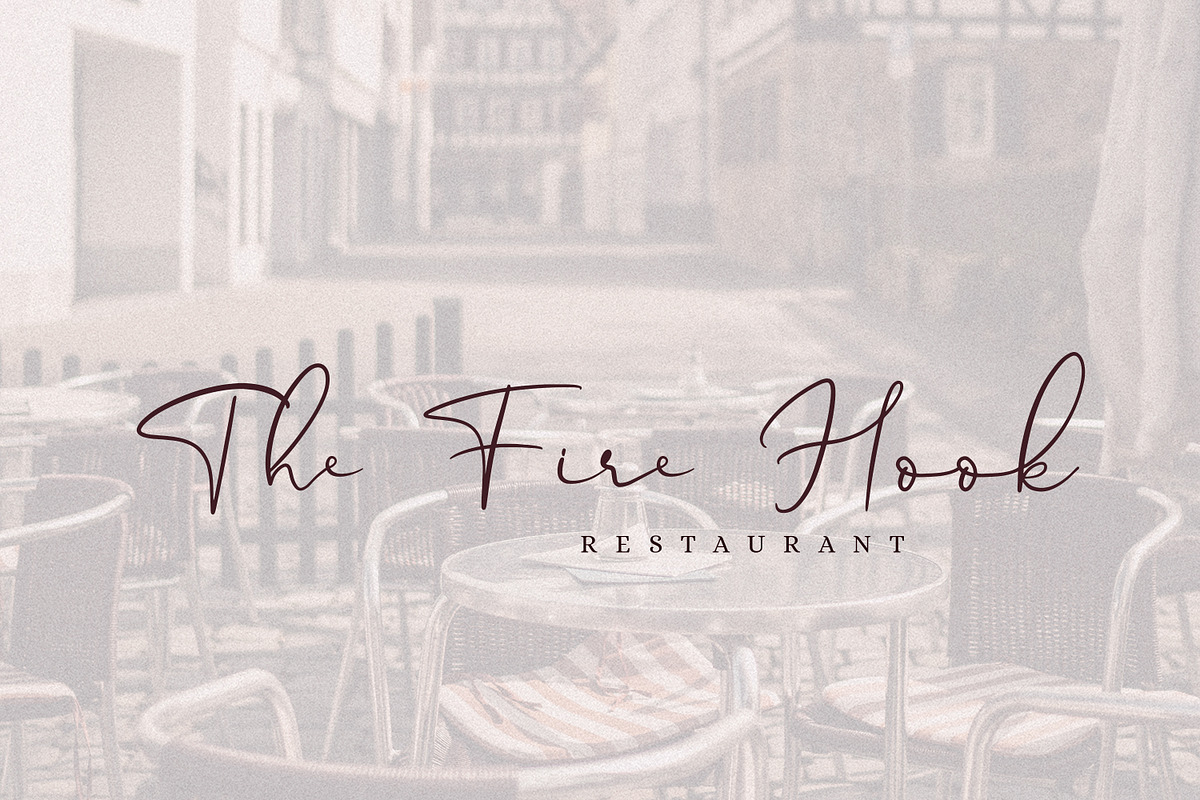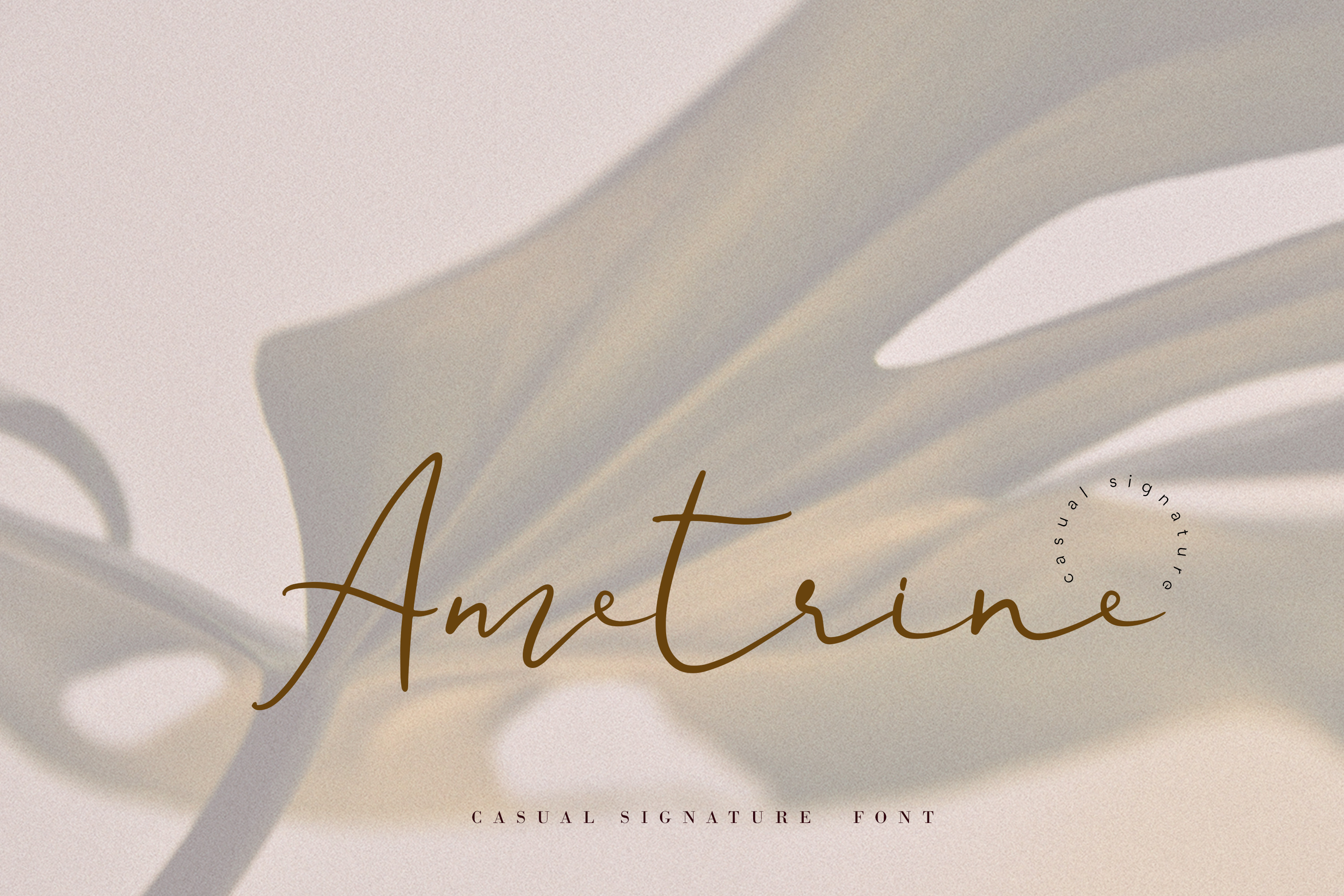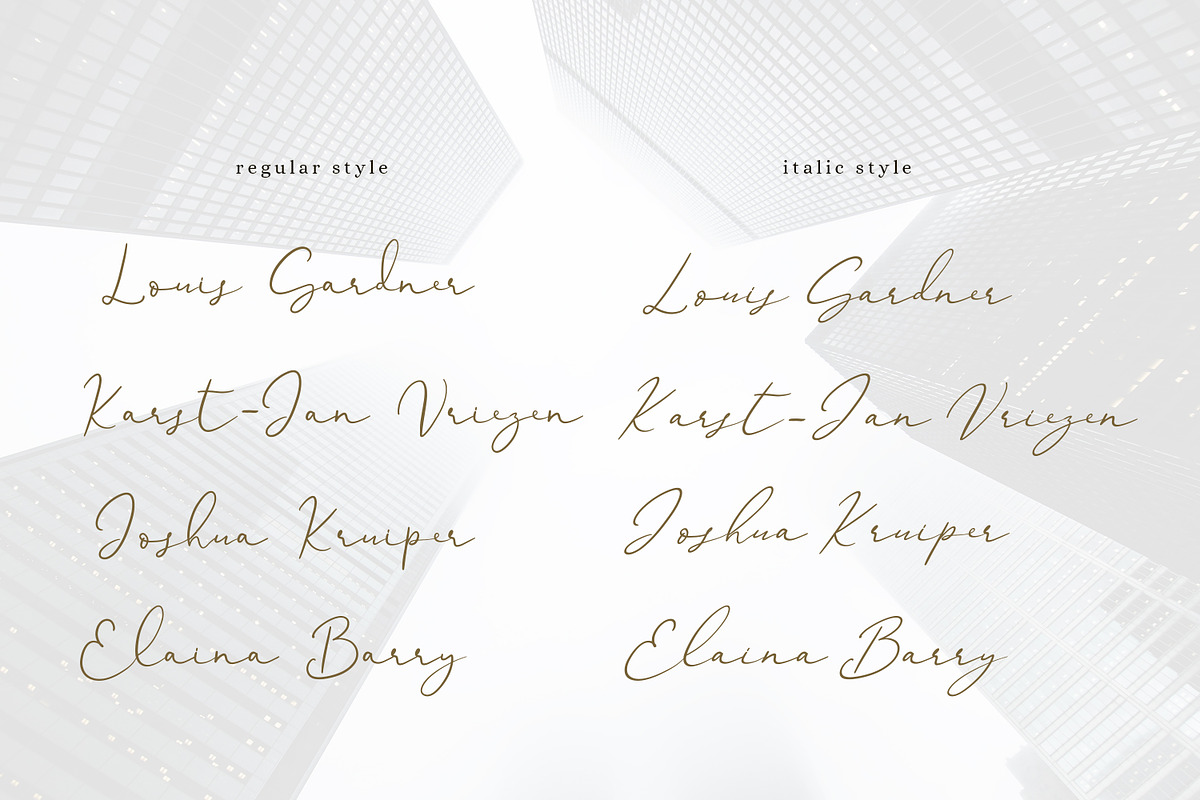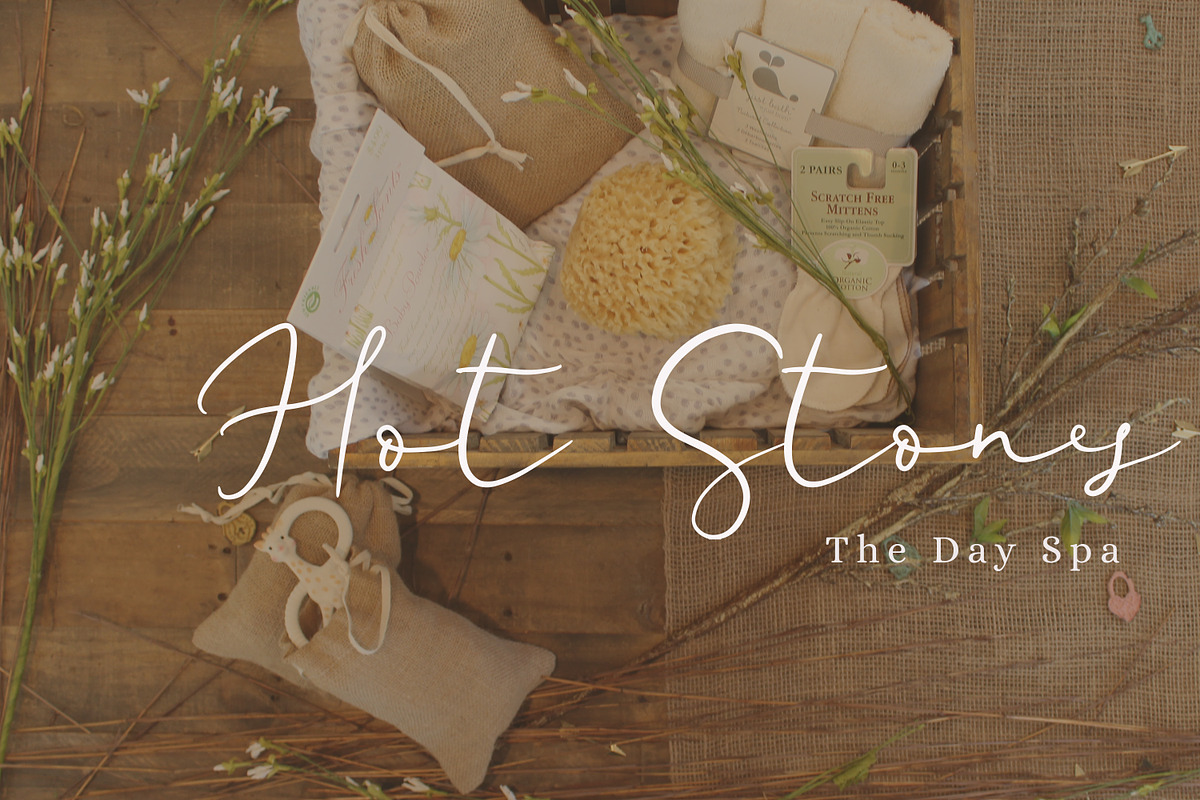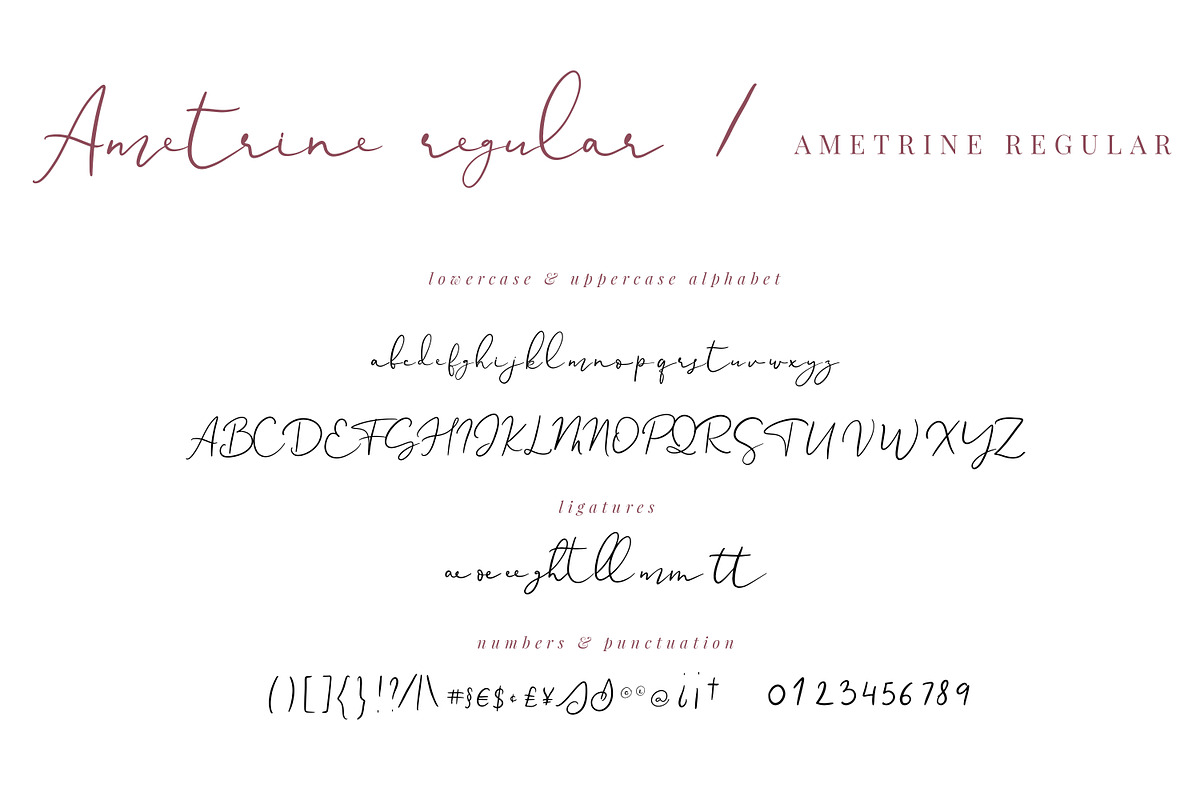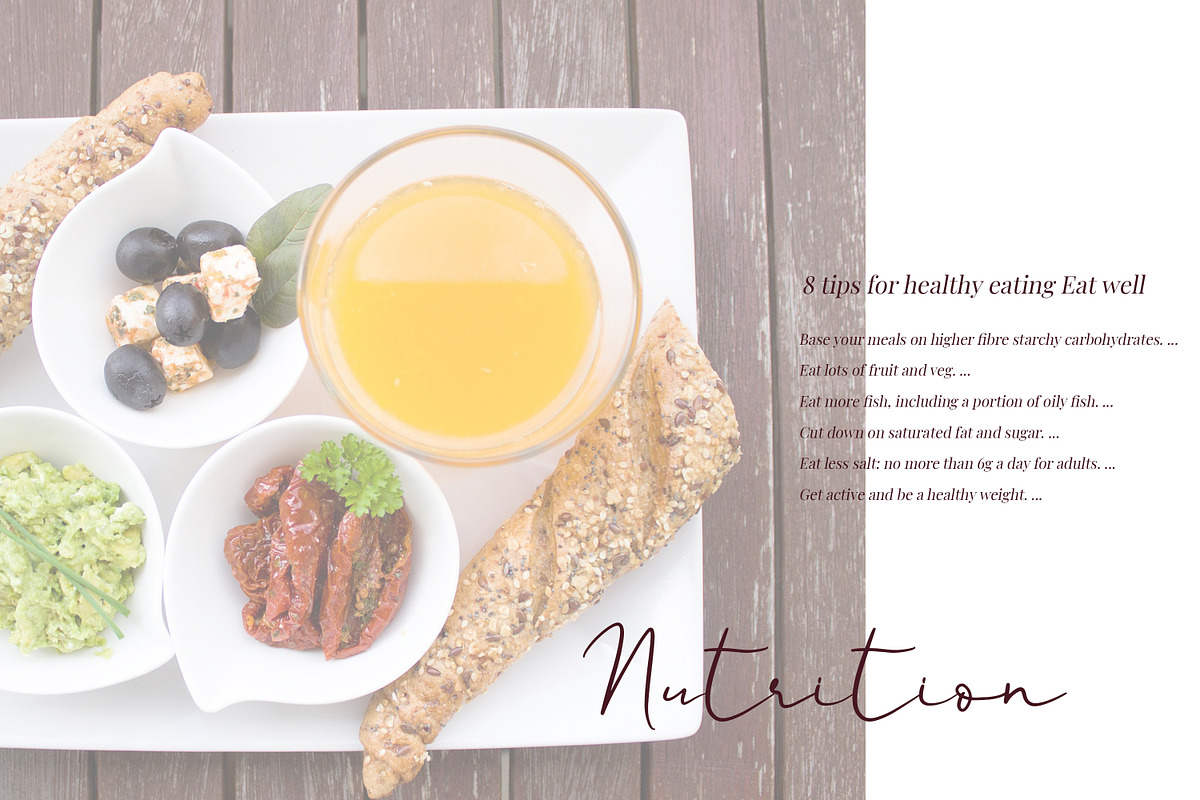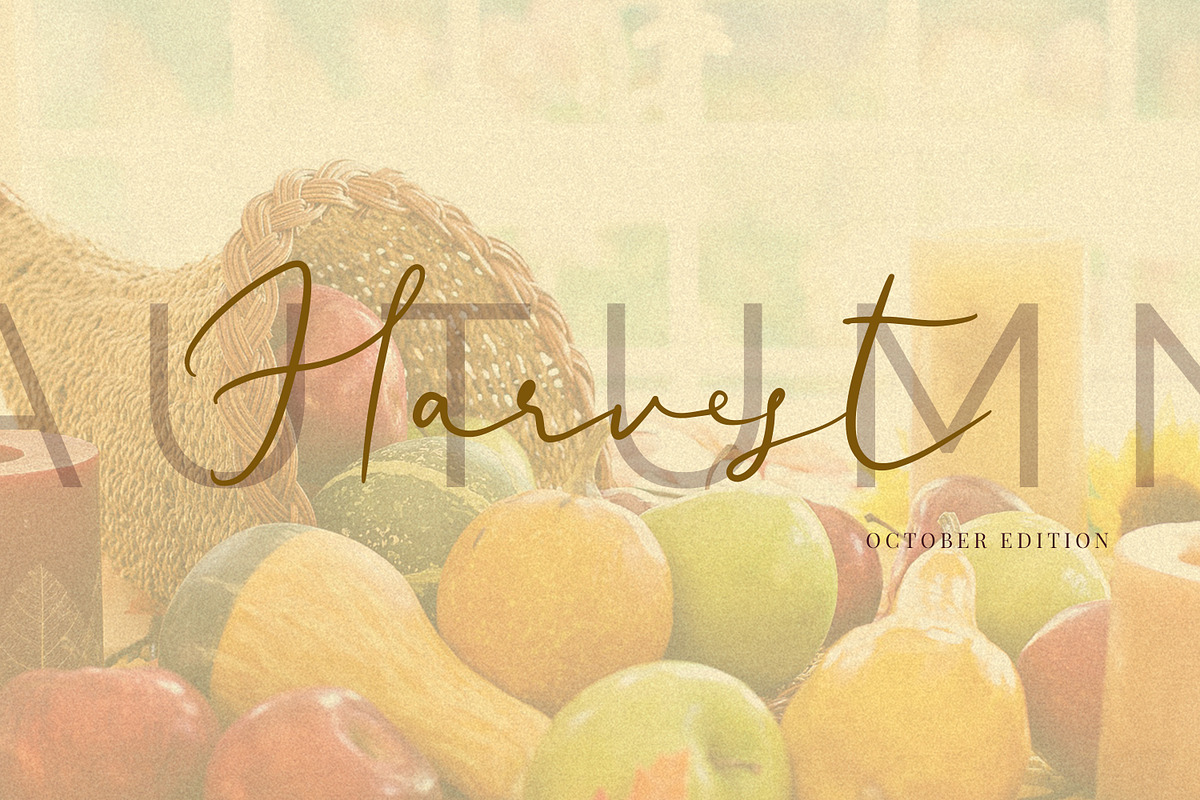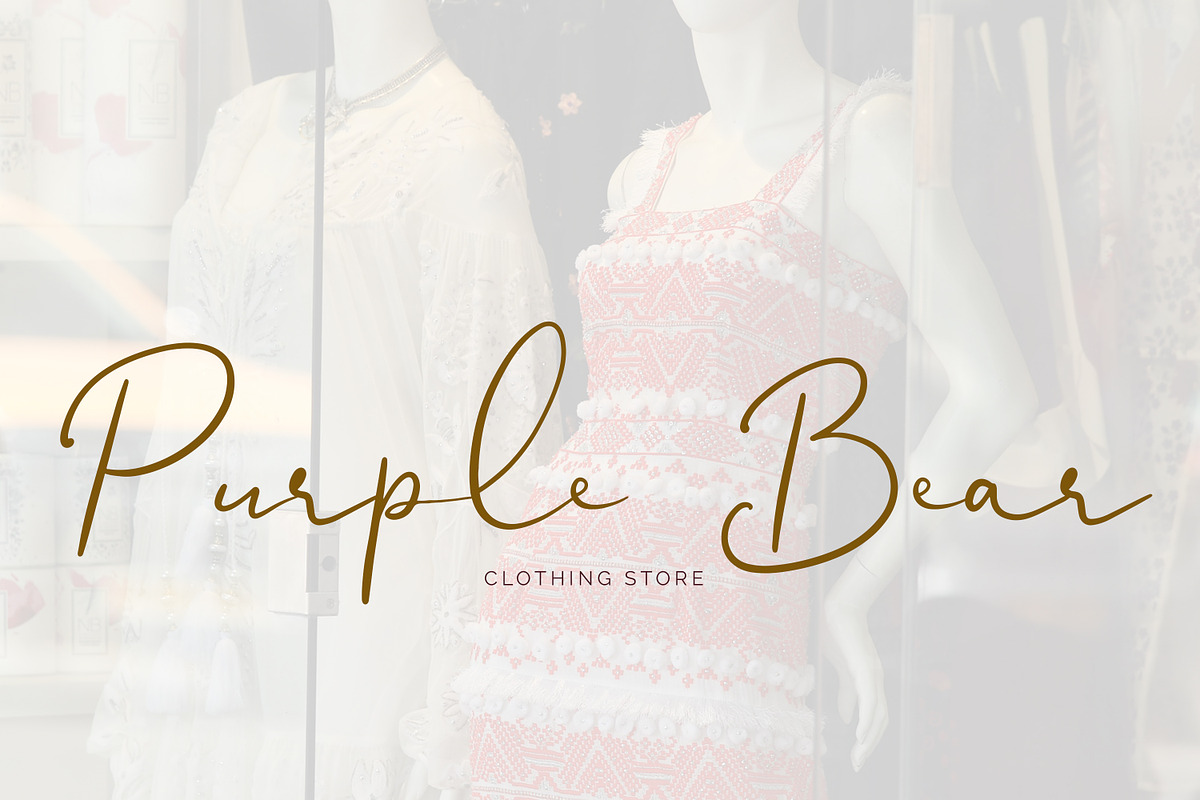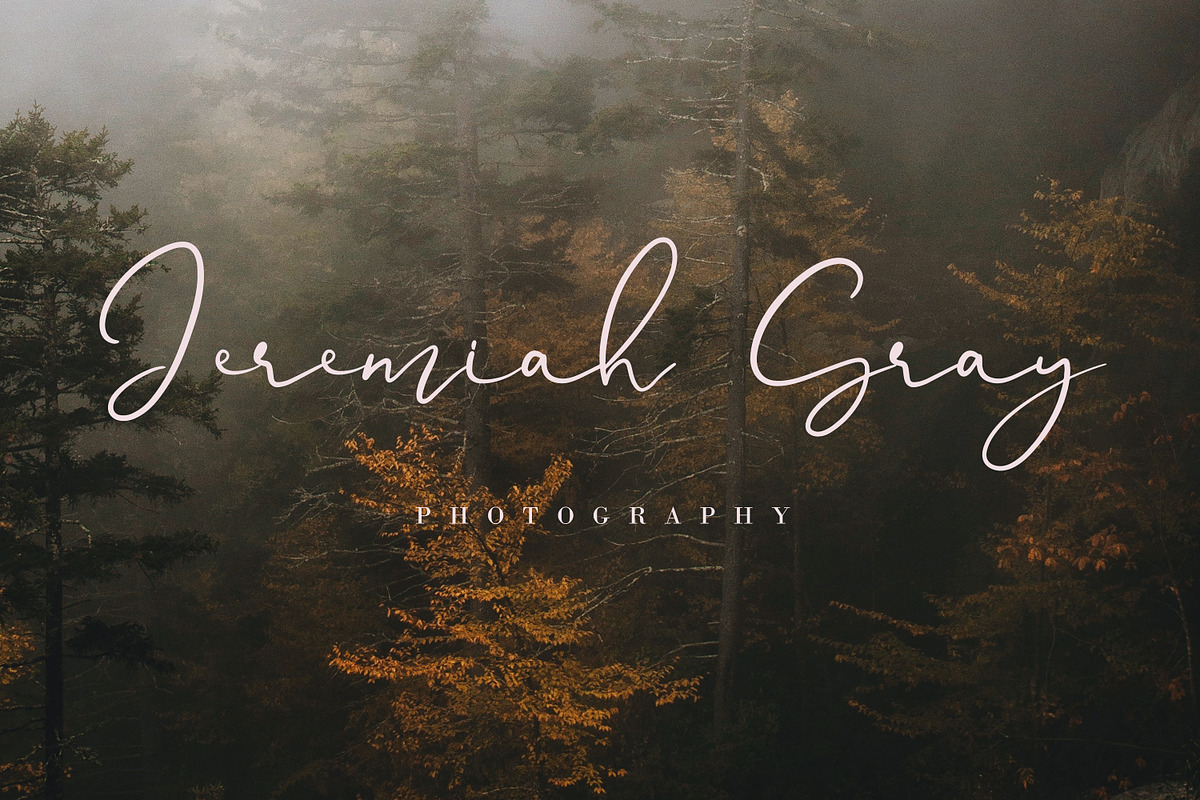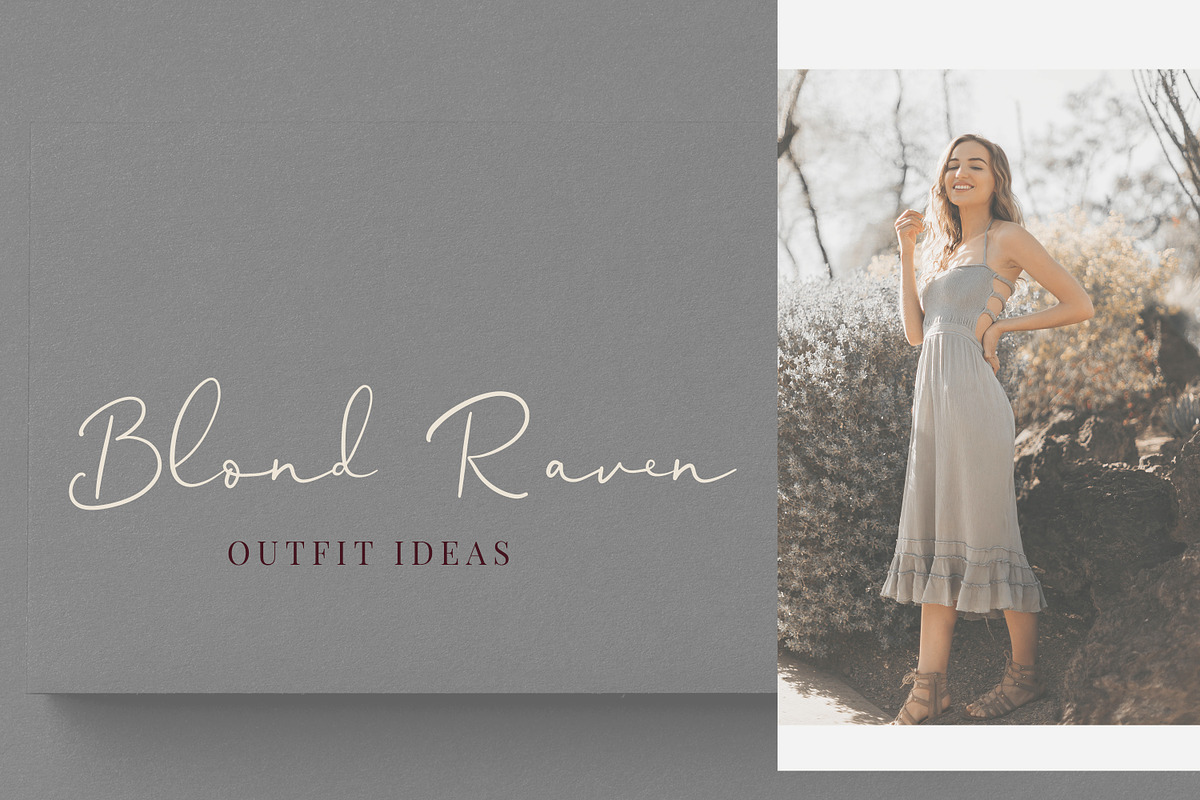
Ametrine, casual font
Ametrine is a beautiful super-casual style font with an authentic handcrafted feel. It is great for signature logos, posters, social media, wedding invitations, blog posts, headlines and more.
Ametrine includes 2 styles (Regular & Italic), 203 glyphs with numbers, punctuation, ligatures, multilingual support.